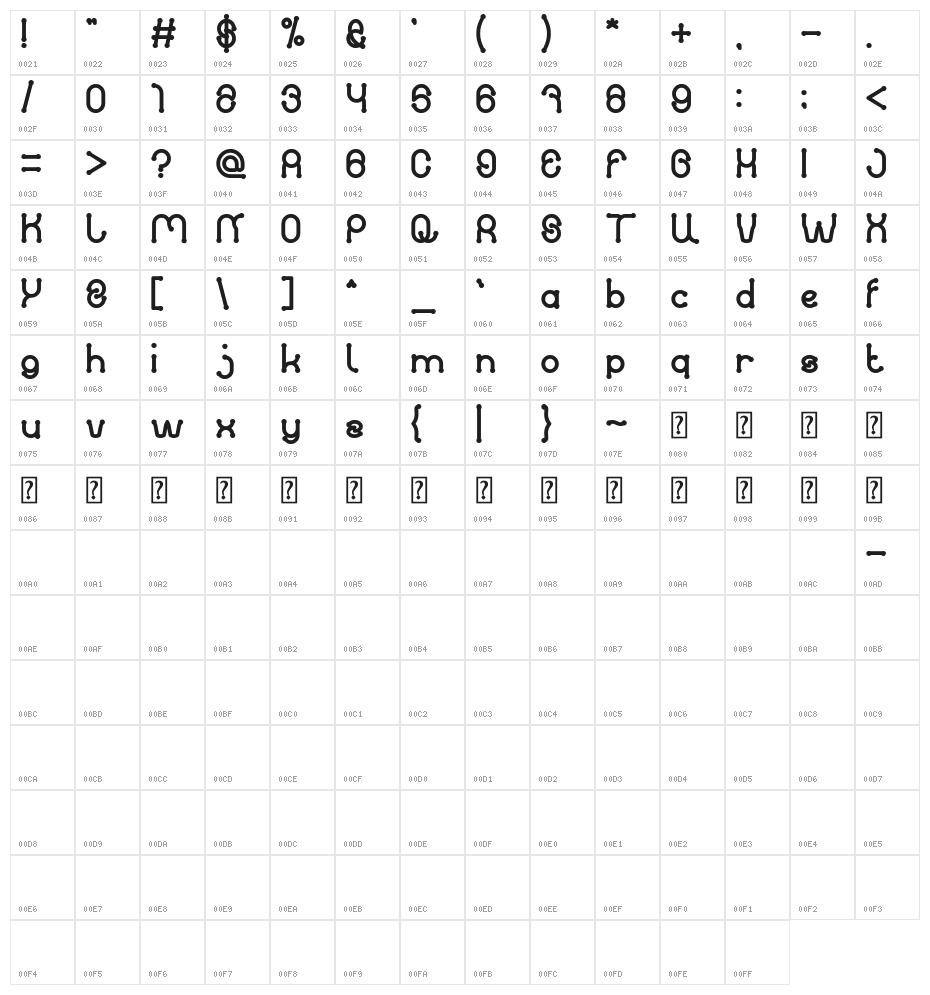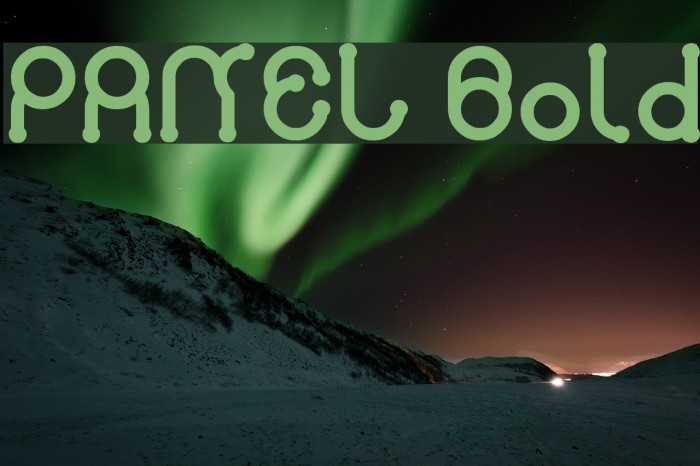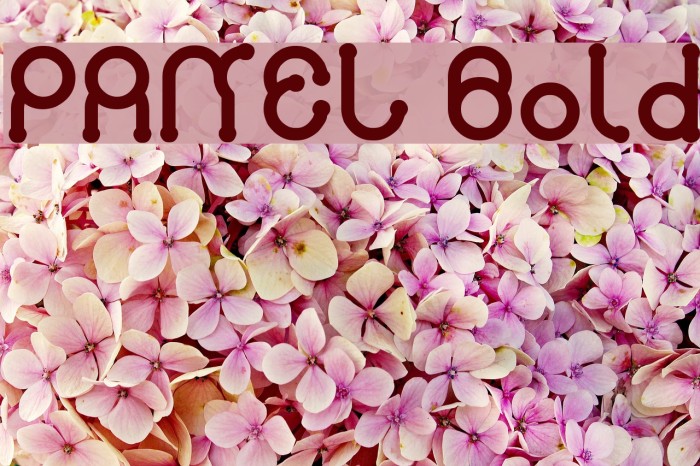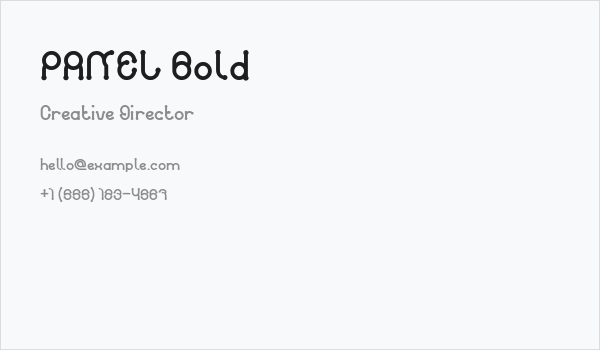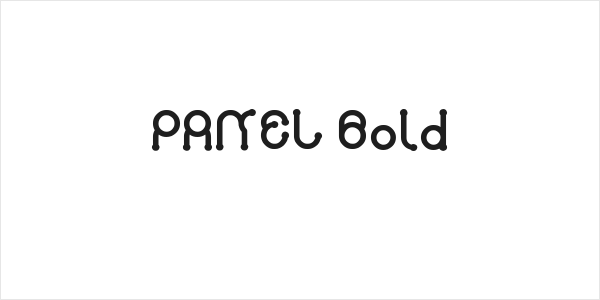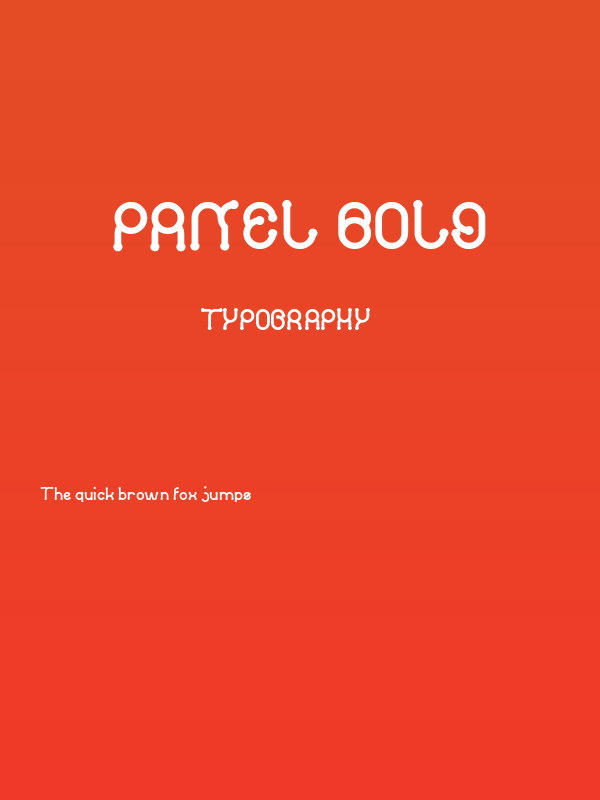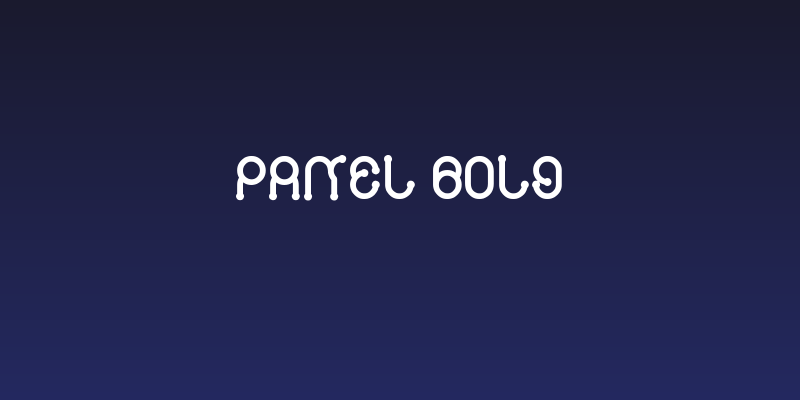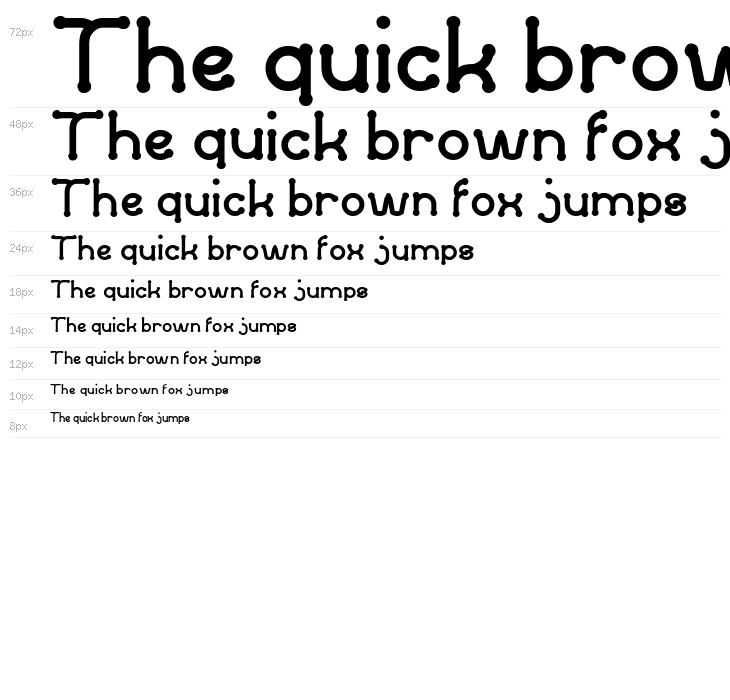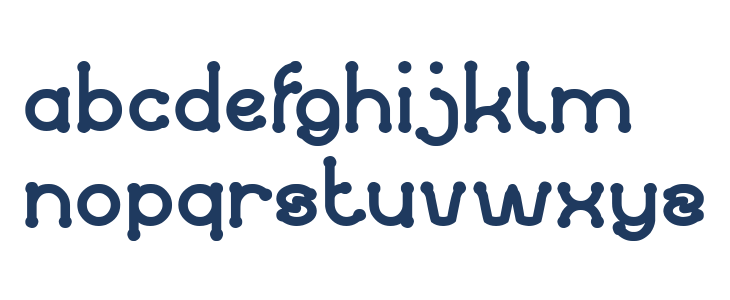
PANEL Bold Font
PANEL Bold Description
This font features a playful and rounded design with a bold weight, making it stand out with its unique character shapes. The letters have a consistent thickness, contributing to a cohesive and harmonious appearance. The rounded terminals and smooth curves give it a friendly and approachable feel. The font maintains a uniform stroke width, which enhances its readability and makes it suitable for various design applications. The overall style is modern and slightly whimsical, perfect for projects that require a touch of creativity and fun.
| Proposed Projects | Ideal for children's books, playful branding, posters, and creative digital content. |